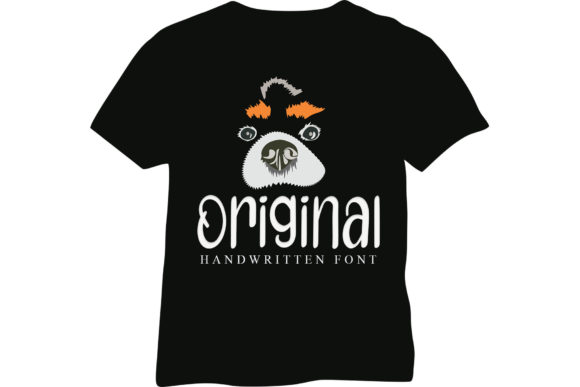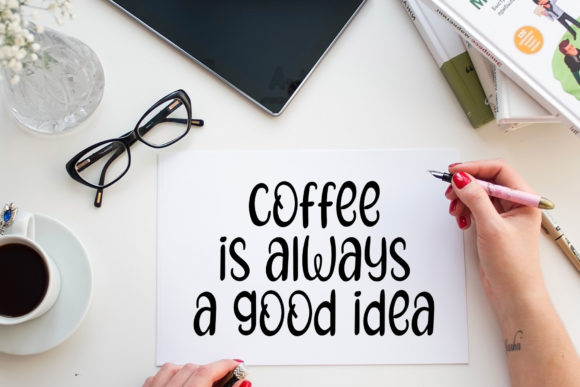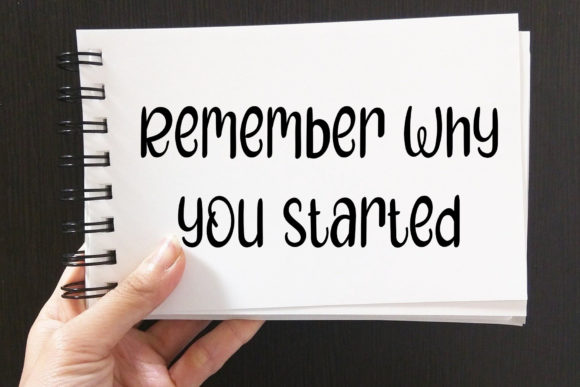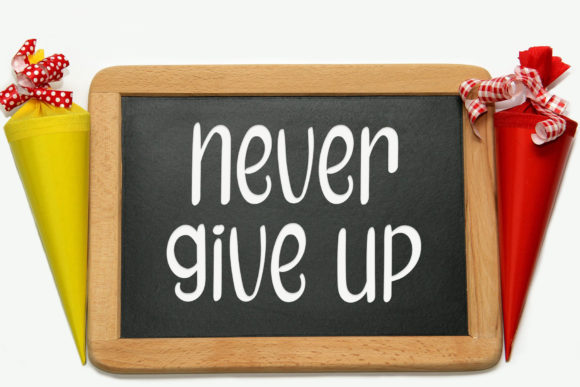
Cotton Candy Font: A Sweet and Adaptable Handwritten Delight
Are you on the hunt for a font that can add a touch of whimsy and romance to your designs? Look no further than the Cotton Candy font! This sweet and adaptable handwritten font is perfect for a variety of design ideas and is sure to bring a smile to your audience’s faces.
The Charm of Cotton Candy Font
Cotton Candy font is a beautiful, hand-crafted typeface that exudes a sense of playfulness and joy. Its gentle, cursive lines and rounded edges give it a soft and approachable feel, making it perfect for designs that require a touch of warmth and personality.
Whether you’re working on a branding project, a wedding invitation, or a social media graphic, Cotton Candy font is sure to add a romantic and whimsical touch. Its adaptability and versatility make it an excellent choice for designers and crafters who want to create unique and eye-catching designs.
Design Ideas to Make the Most of Cotton Candy Font
So, how can you use Cotton Candy font to elevate your designs? Here are a few ideas to get you started:
- Wedding Invitations: Add a touch of romance and whimsy to your wedding invitations with Cotton Candy font. It’s perfect for creating beautiful, one-of-a-kind wedding stationery.
- Branding: Use Cotton Candy font to create a unique and memorable brand identity. Its playful and approachable feel makes it perfect for businesses that want to connect with their audience on a personal level.
- Social Media Graphics: Add a pop of personality to your social media graphics with Cotton Candy font. It’s perfect for creating eye-catching posts and stories that will help you stand out from the crowd.
- Party Decorations: Use Cotton Candy font to create beautiful party decorations, such as banners, garlands, and invitations. Its playful and festive feel makes it perfect for birthday parties, baby showers, and other celebrations.
Why Designers and Crafters Love Cotton Candy Font
So, why do designers and crafters love Cotton Candy font? Here are just a few reasons:
- Unique and Eye-Catching: Cotton Candy font is a unique and eye-catching typeface that will help your designs stand out from the crowd.
- Easy to Read: Despite its playful and whimsical feel, Cotton Candy font is easy to read and understand, making it perfect for designs that require a clear and concise message.
- Versatile: Cotton Candy font is incredibly versatile and can be used for a wide range of design projects, from branding and advertising to party decorations and social media graphics.
- High-Quality: Cotton Candy font is a high-quality typeface that is designed to look beautiful and elegant on any device or platform.
Tips for Using Cotton Candy Font Effectively
Here are a few tips for using Cotton Candy font effectively in your designs:
- Use it Sparingly: While Cotton Candy font is beautiful and eye-catching, it can be overwhelming if used too much. Use it sparingly to add a touch of personality to your designs.
- Pair it with Other Fonts: Cotton Candy font pairs beautifully with other fonts, such as sans-serif and serif typefaces. Experiment with different font combinations to find the perfect look for your design.
- Experiment with Colors: Cotton Candy font looks beautiful in a variety of colors, from bright and bold to soft and pastel. Experiment with different colors to find the perfect look for your design.
In conclusion, Cotton Candy font is a sweet and adaptable handwritten font that is perfect for designers and crafters who want to add a touch of whimsy and romance to their designs. Its unique and eye-catching feel, ease of readability, and versatility make it an excellent choice for a wide range of design projects. So why not give it a try and see how it can elevate your designs?